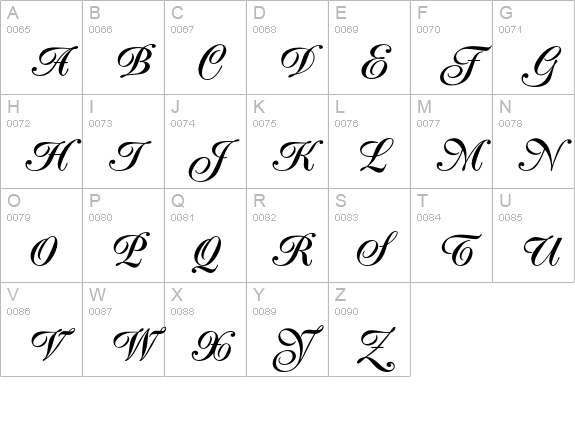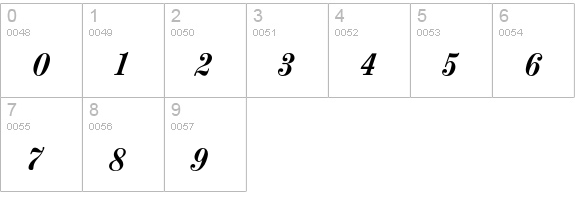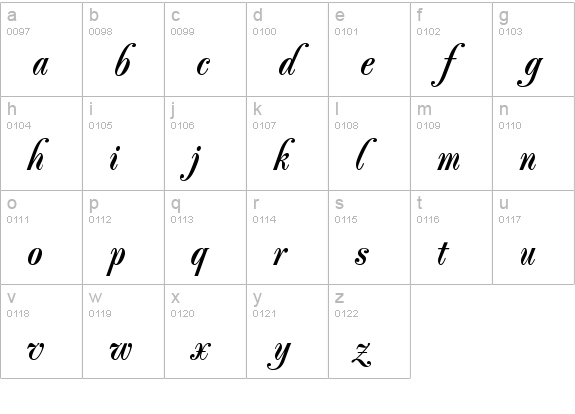
Poppl Exquisit R Font Details
Poppl Exquisit R font is a sophisticated and elegant typeface that exudes a sense of luxury and refinement. With its delicate serifs and graceful curves, this font is perfect for adding a touch of class to any design project. The timeless beauty of Poppl Exquisit R font makes it a versatile choice for a wide range of applications, from branding to editorial design. And the best part? Poppl Exquisit R font is available for free download at FontsMarket.com. Whether you're working on a personal project or a professional assignment, you can add this exquisite font to your collection without any cost. Don't miss out on the opportunity to enhance your designs with the timeless elegance of Poppl Exquisit R font. Download it now and elevate your typography game to the next level.